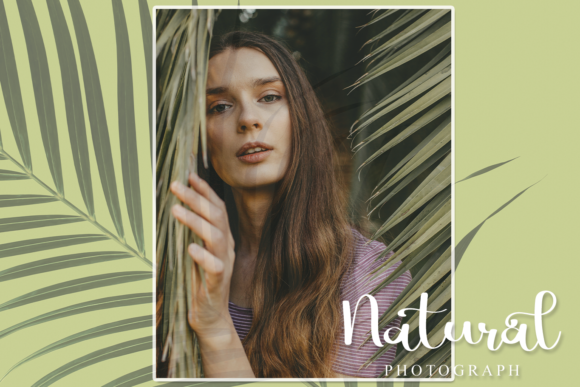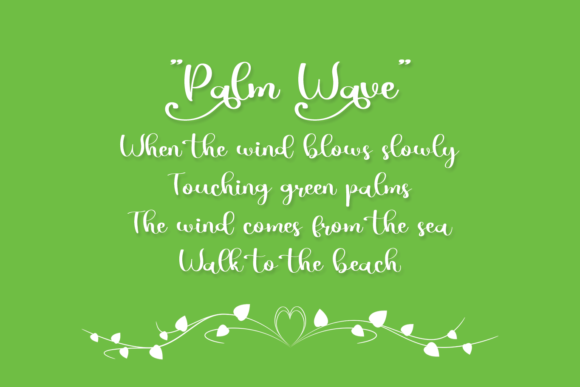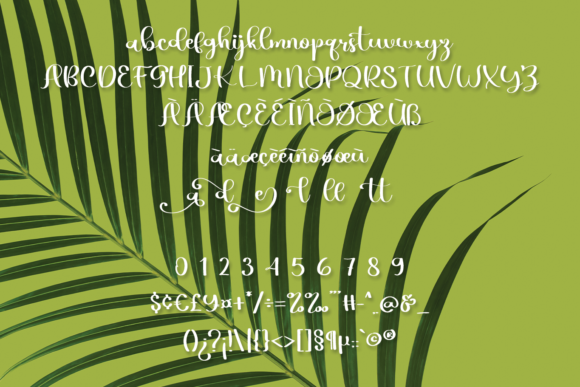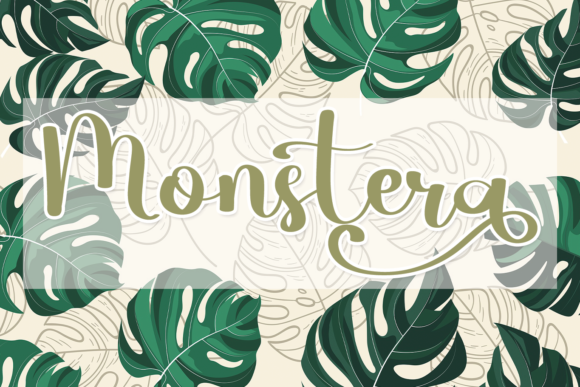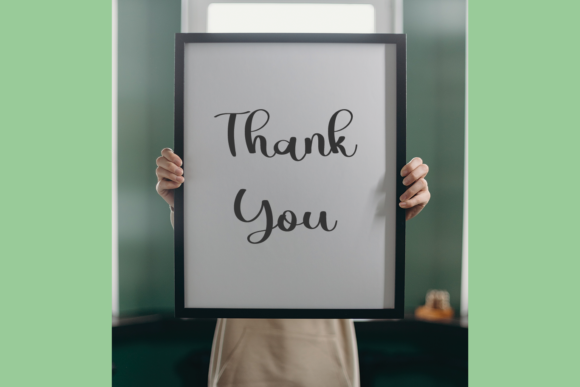
Paradise Font
About Paradise Font
Paradise is a dainty and flowing handwritten font. Sweet and joyful, this font will be ideal for writing wedding invitations, cards or any other design that may need a romantic, personalized touch!